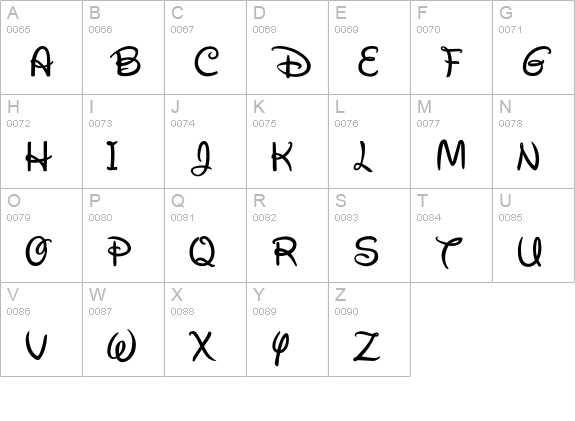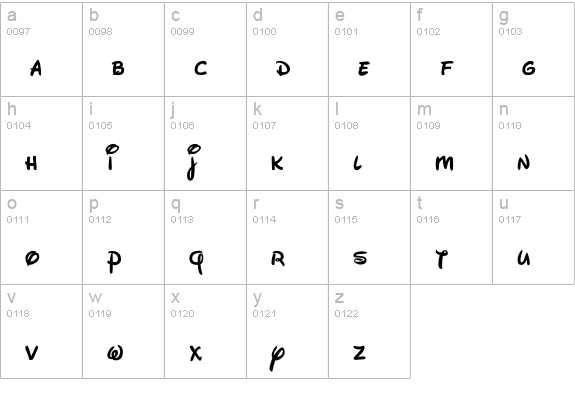
Waltograph, a charming and whimsical font inspired by the iconic Walt Disney logo, is a delightful choice for all your design projects. With its playful and nostalgic feel, this font brings a touch of magic to any text it graces. With its distinct hand-drawn style, Waltograph captures the essence of Walt Disney's imagination and creativity. Each letter is carefully crafted with attention to detail, resulting in a unique and captivating typeface that captures the essence of the Disney brand. Whether you are designing a poster, creating a logo, or adding a touch of Disney magic to your personal projects, Waltograph is the perfect choice. Its versatility allows it to be used for a wide range of design purposes, from elegant invitations to fun and whimsical children's book covers. What makes Waltograph even more appealing is that it is absolutely free. That's right, this enchanting font is freely available to download at FontsMarket.com. Now, you can bring a touch of Disney charm to your designs without breaking the bank. So, whether you are a professional designer or simply want to add a sprinkle of Disney magic to your personal projects, Waltograph is the ideal font for you. Download it for free at FontsMarket.com and let the whimsical world of Walt Disney inspire your creativity.